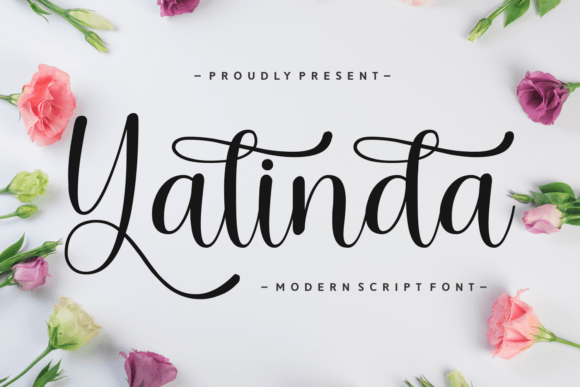
Introducing Yatinda: The Elegant Modern Script Font
In the world of typography, few fonts manage to convey elegance and sophistication as effortlessly as Yatinda. This modern script font is a masterclass in luxurious yet approachable design, making it the perfect choice for a wide range of creative projects. From wedding invitations and branding projects to social media graphics and romantic designs, Yatinda brings a timeless charm and versatile style that elevates any creation.
Key Features of Yatinda Font
- Fluid Strokes: Yatinda’s fluid strokes are what set it apart from other script fonts. Each letter flows seamlessly into the next, creating a beautiful, connected script that looks stunning on paper and on screen.
- Carefully Crafted Swashes: Swashes add a touch of luxury to any font, and Yatinda’s are meticulously designed to enhance the overall aesthetic of the font. They can be used to add a decorative touch to headings, titles, and other design elements.
- Elegant and Sophisticated: Yatinda exudes elegance and sophistication, making it perfect for high-end branding projects, wedding invitations, and other designs where a luxurious feel is desired.
- Versatile: Despite its luxurious feel, Yatinda is incredibly versatile. It can be used for a wide range of projects, from romantic designs and social media graphics to packaging and advertising.
10 Creative Ways to Use Yatinda Font
- Wedding Invitations: Yatinda is a perfect choice for wedding invitations, adding a touch of elegance and sophistication to your wedding stationery.
- Branding Projects: Create a luxurious brand identity with Yatinda. Its elegant and sophisticated design makes it perfect for high-end brands.
- Social Media Graphics: Elevate your social media graphics with Yatinda’s fluid strokes and carefully crafted swashes.
- Romantic Designs: Yatinda is perfect for romantic designs, such as Valentine’s Day cards, love letters, and other projects that require a touch of elegance.
- Packaging Design: Add a touch of luxury to your packaging design with Yatinda. Its elegant and sophisticated design makes it perfect for high-end products.
- Advertising: Yatinda can be used in advertising to create elegant and sophisticated ad campaigns that stand out from the crowd.
- Stationery: Create beautiful stationery with Yatinda, including letterheads, business cards, and other office supplies.
- Signage: Yatinda can be used for signage, including store signs, directional signs, and other types of signage that require a touch of elegance.
- Menu Design: Create elegant and sophisticated menus with Yatinda, perfect for high-end restaurants and cafes.
- Photography: Yatinda can be used to create beautiful photo captions, adding a touch of elegance and sophistication to your photography projects.
Typography Tips for Using Yatinda Font
- Pair with Simple Fonts: Yatinda’s elegant and sophisticated design can be paired with simple fonts to create a beautiful contrast.
- Use Swashes Wisely: Swashes can add a touch of luxury to your design, but use them wisely to avoid overwhelming the reader.
- Experiment with Colors: Yatinda looks stunning in a range of colors. Experiment with different colors to find the perfect fit for your design.
- Pay Attention to Spacing: Pay attention to spacing when using Yatinda. The font’s fluid strokes and swashes require careful spacing to ensure a beautiful and elegant design.
Why Choose Yatinda Font?
Yatinda font is a high-quality, modern script font that offers a unique combination of elegance and sophistication. Its fluid strokes and carefully crafted swashes make it perfect for a wide range of creative projects. Whether you’re looking to create a luxurious brand identity, design elegant wedding invitations, or add a touch of sophistication to your social media graphics, Yatinda is the perfect choice.
In conclusion, Yatinda font is a versatile and elegant modern script font that is perfect for creative projects that require a touch of luxury and sophistication. Its fluid strokes, carefully crafted swashes, and timeless charm make it a valuable addition to any designer’s font library. Whether you’re a seasoned designer or just starting out, Yatinda is a great choice for anyone looking to elevate their creations with a beautiful and elegant font.